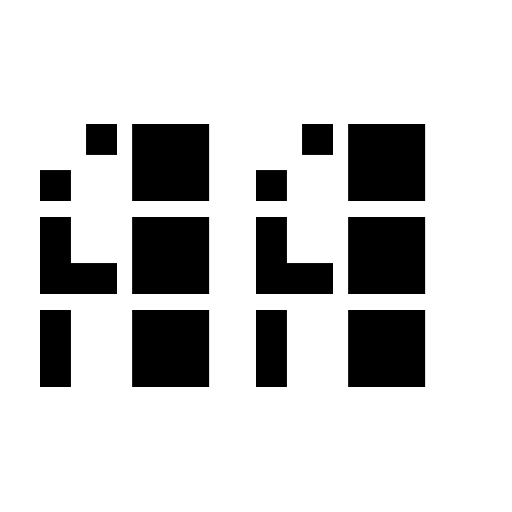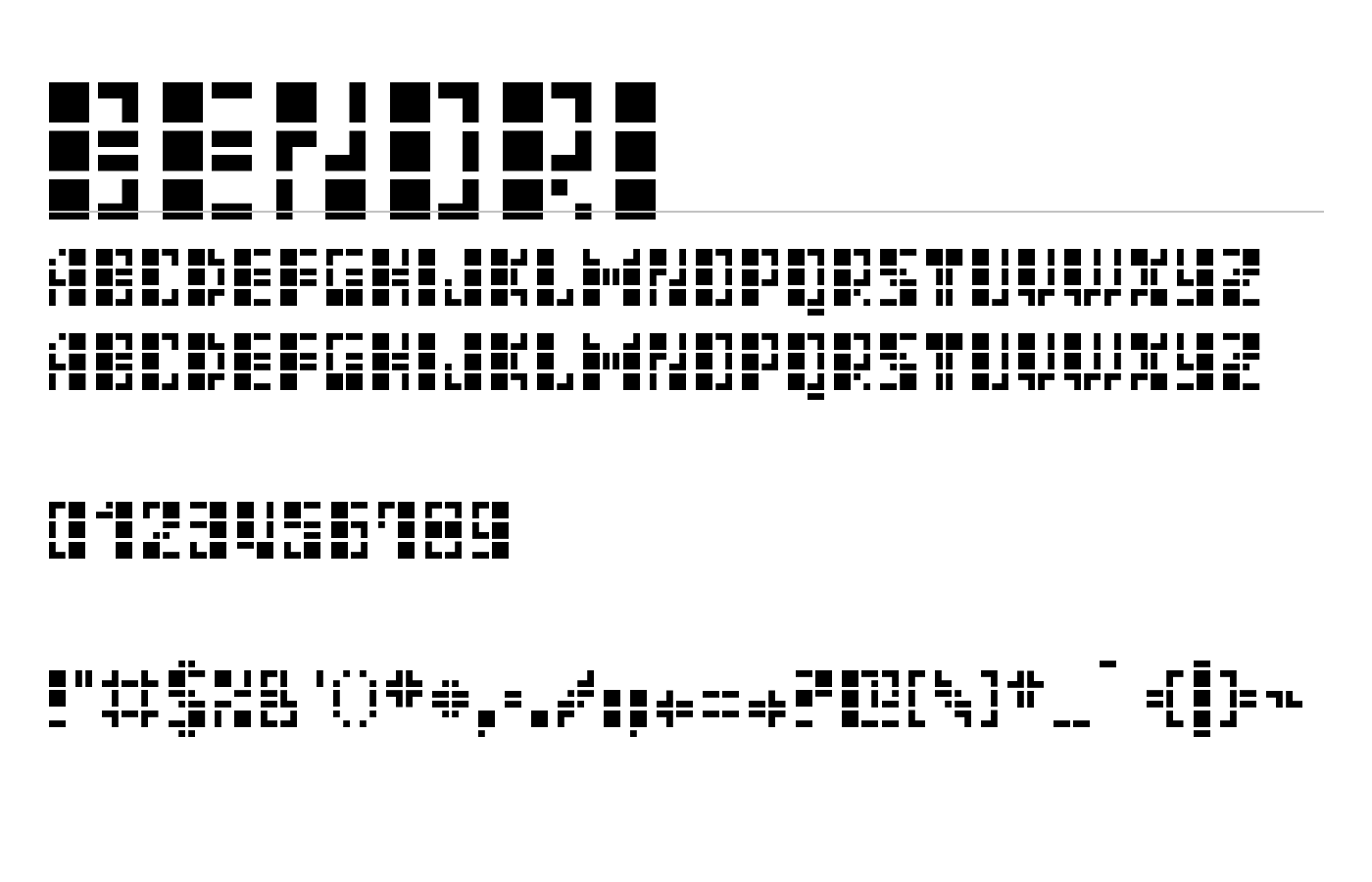
Benori Font is a bold, geometric sans serif typeface characterized by its blocky, pixelated design that evokes a digital or tech-inspired aesthetic. With its uniform weight, condensed width, and modular letterforms, it works perfectly for creating eye-catching headlines, logos, or digital-themed projects where a futuristic, retro-computer vibe is desired. This font’s distinctive square shapes and sharp edges make it stand out in tech, gaming, and modern branding contexts.
Benori Font
About Benori Font